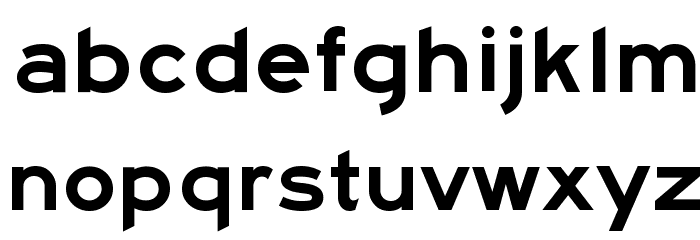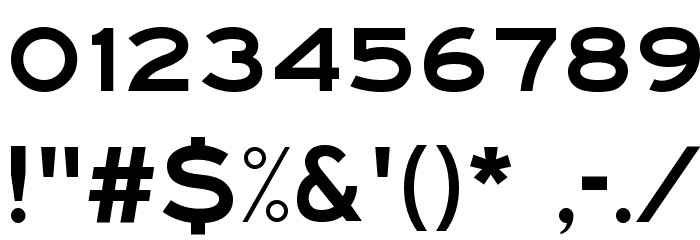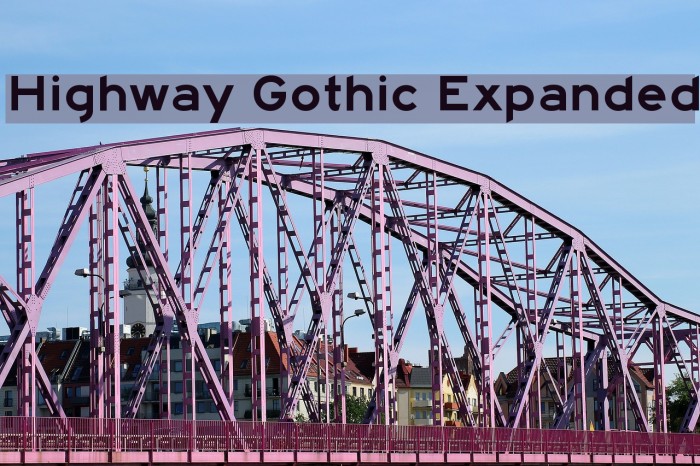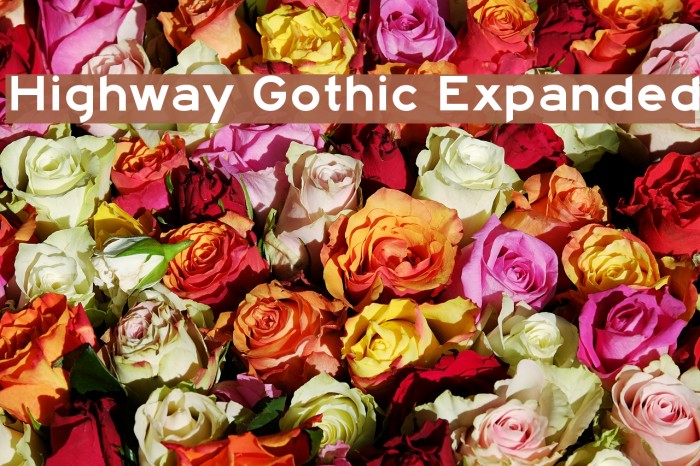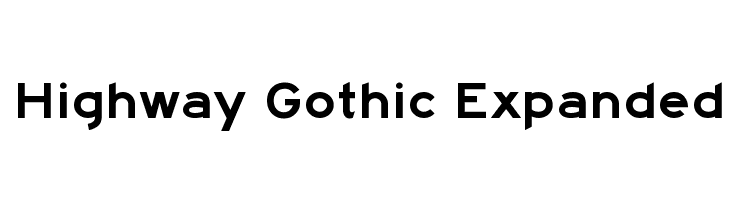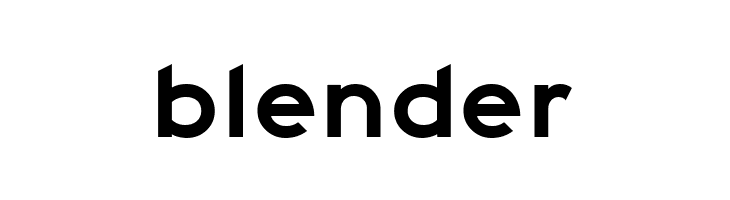
Highway Gothic Expanded Font
This typeface is characterized by its clean and modern sans-serif design, featuring bold and uniform strokes that provide excellent legibility. The letters are wide and evenly spaced, making them highly readable from a distance. The geometric shapes of the characters contribute to a contemporary appearance, while the consistent stroke weight ensures clarity and simplicity. This font is particularly effective for signage and display purposes due to its straightforward and impactful style.
A modern, bold sans-serif font with wide, evenly spaced characters for high readability.
- Proposed Projects: Ideal for highway signage, advertising billboards, corporate branding, and any project requiring clear and impactful text.
- Category: Sans-Serif
- Width: Expanded
- Character Spacing: Wide
- Use Case: Headlines, Signage, Logos